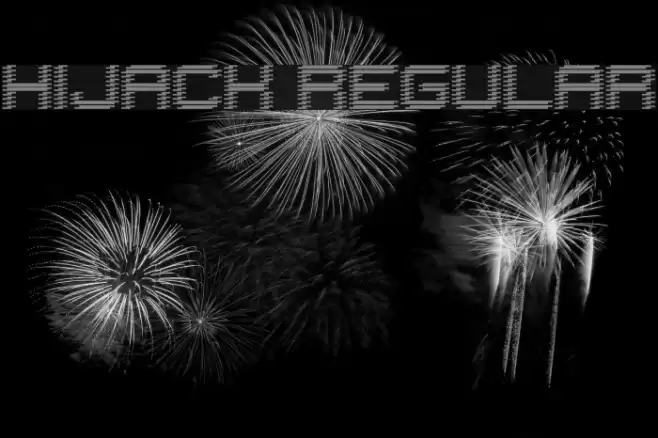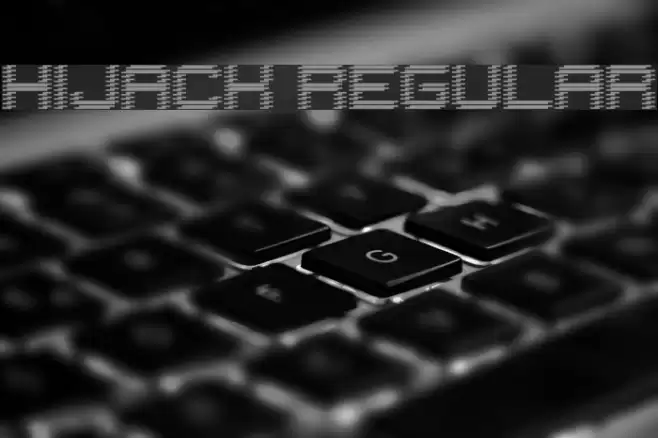
Hijack Regular Font
Hijack Regular Description
This font features a distinctive, futuristic design with a digital, pixelated appearance. The characters are constructed with horizontal lines that create a sense of movement and modernity. Each letter is uniquely crafted to maintain readability while showcasing a high-tech aesthetic. The uppercase and lowercase letters share a consistent style, with the numbers and special characters following the same design principles. This font is ideal for projects that require a modern, tech-savvy look, such as digital interfaces, video game graphics, or technology branding.
A futuristic, pixelated font with a high-tech aesthetic from Distorted Eroded fonts.
• Proposed Projects: Ideal for digital interfaces, video game graphics, technology branding, and futuristic designs.